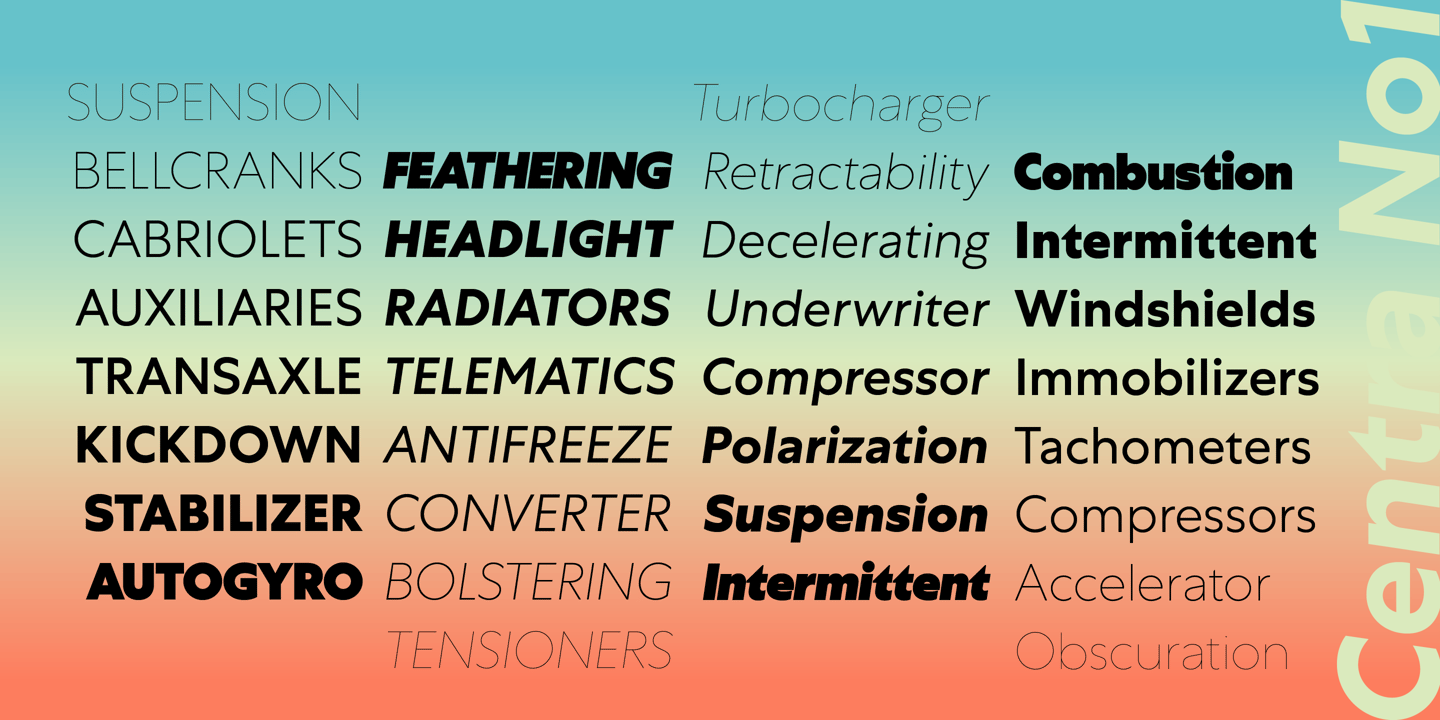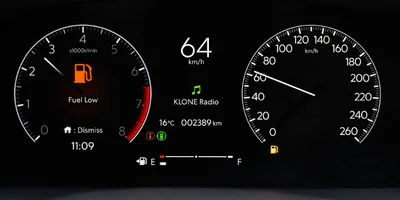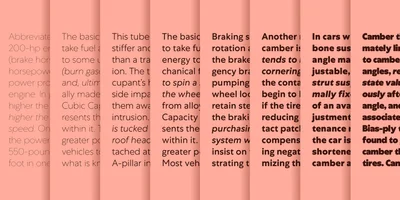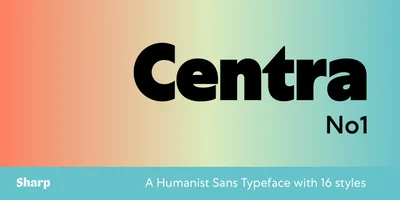
Centra No.1 vs Messina
Centra No.1 and Messina are both sans-serif typefaces sharing a modern foundation. Where Centra No.1 leans geometric, humanist, Messina brings neo-grotesque, editorial. Compare which suits your Branding project.
Recommended: Centra No.1
- geometric, humanist design character
- Suited for Presentations and Apps
- From sharp-type
Consider: Messina
- neo-grotesque, editorial design character
- From luzi-type